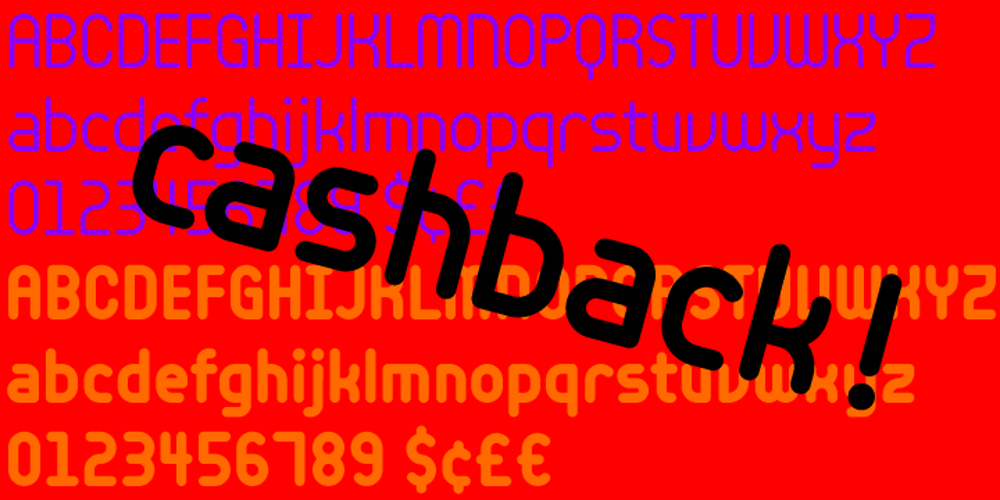
Cashback Font Family was designed by Nicholas Garner and published by AVP. Cashback contains 3 styles and family package options. A rounded geometric font of uniform stroke weight. All strokes have rounded ends and with the exception of the math symbols, there are no diagonal strokes.